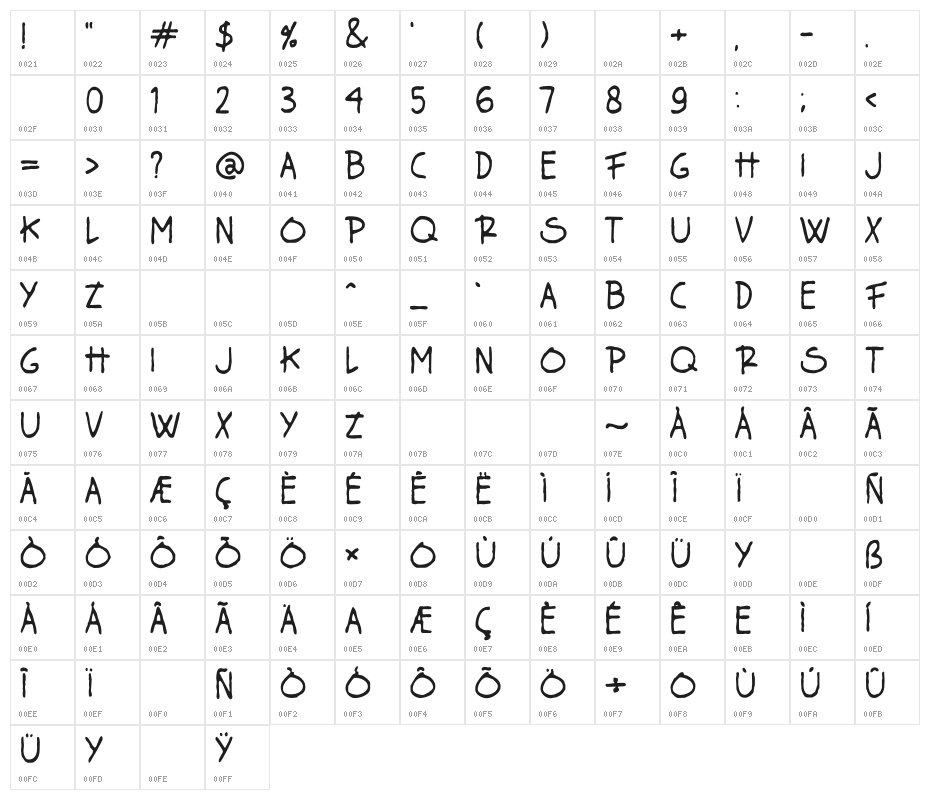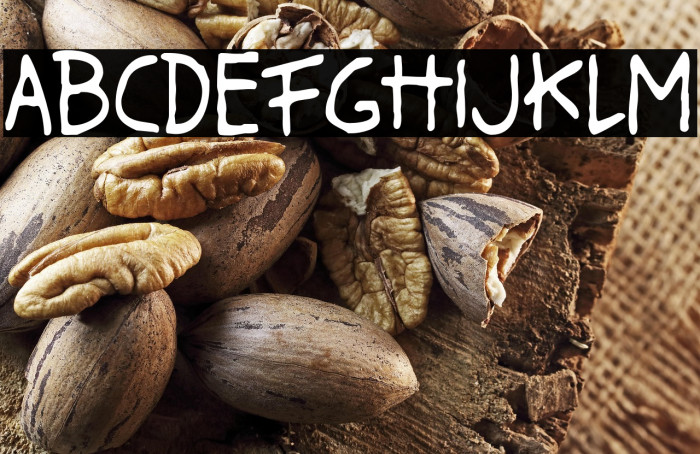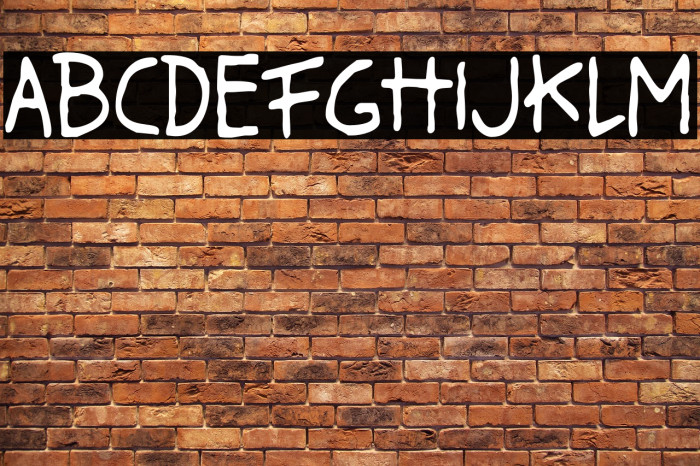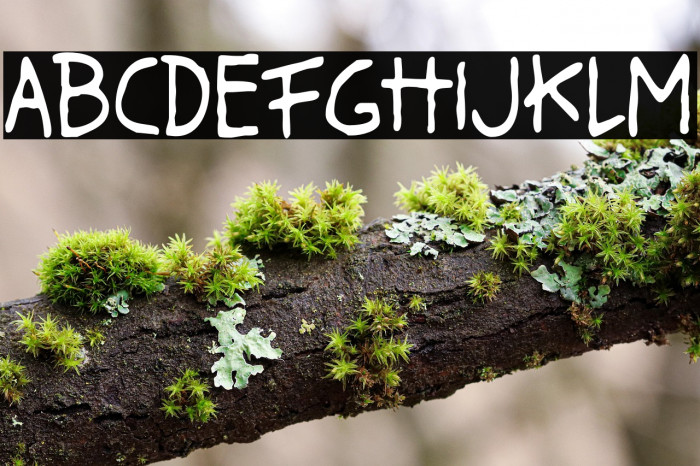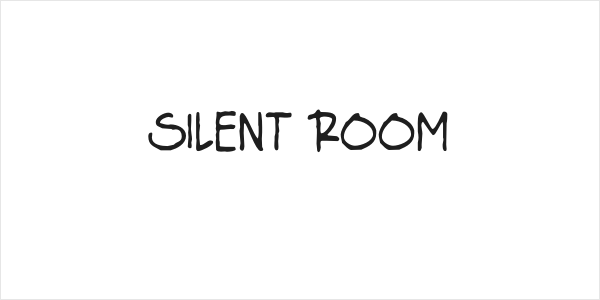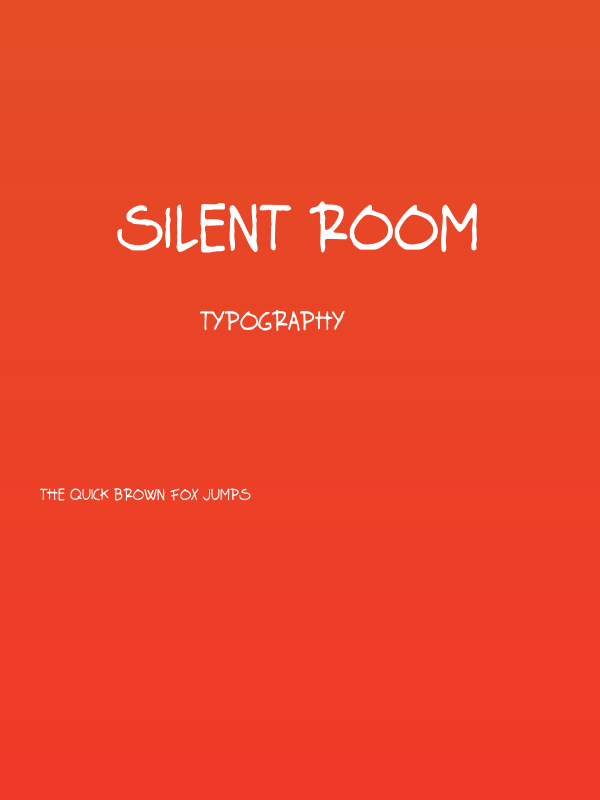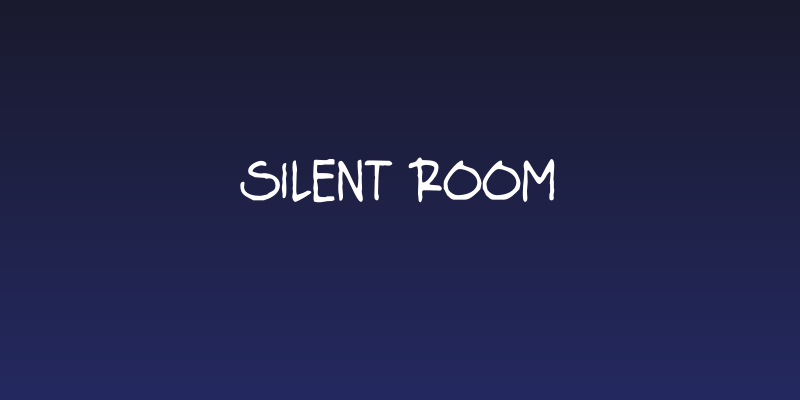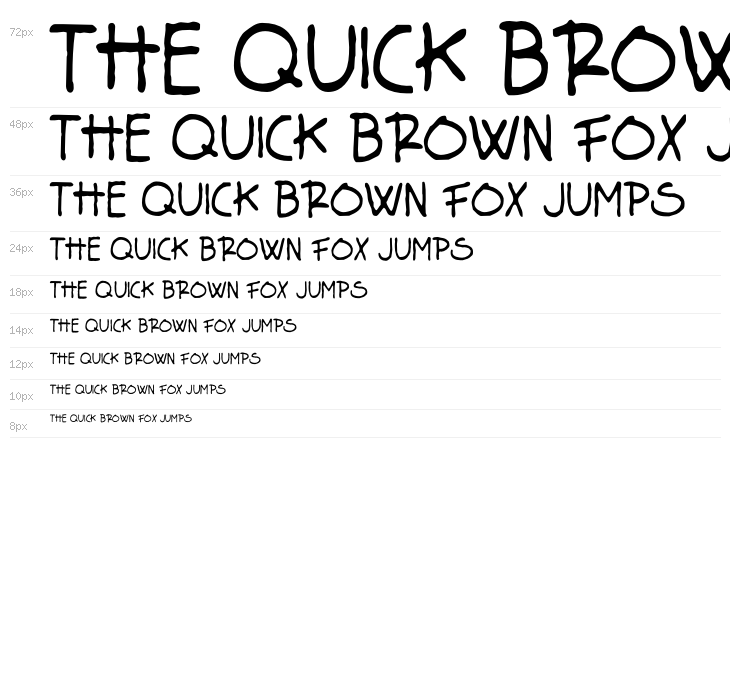
Silent Room Font
Silent Room Description
A playful, handwritten-style font with irregular strokes and a casual appearance.
| Proposed Projects | Greeting cards, children's books, casual posters. |